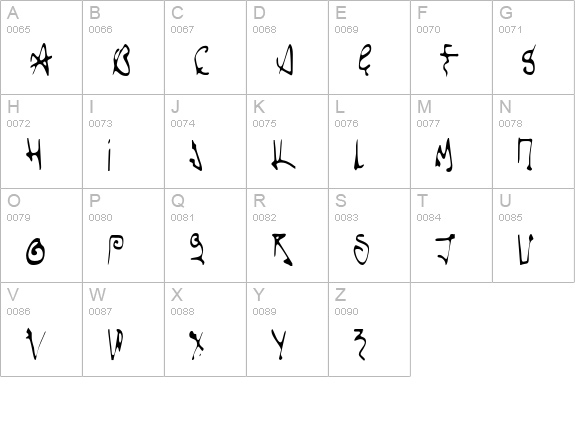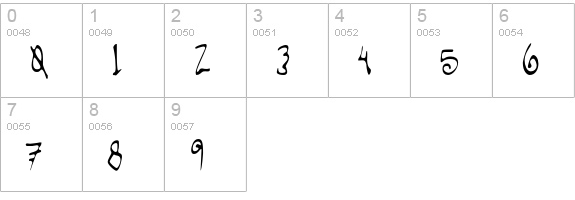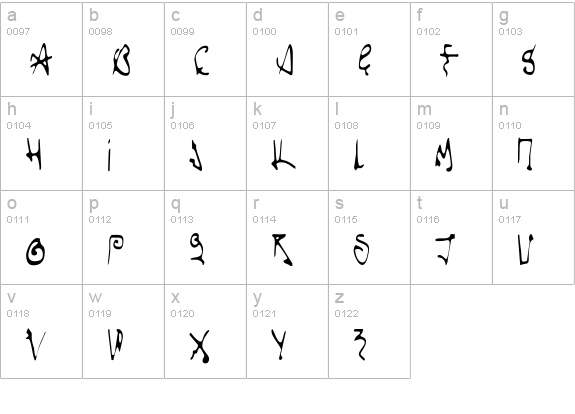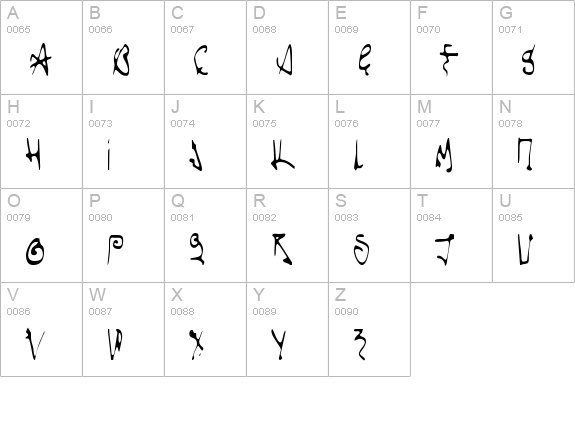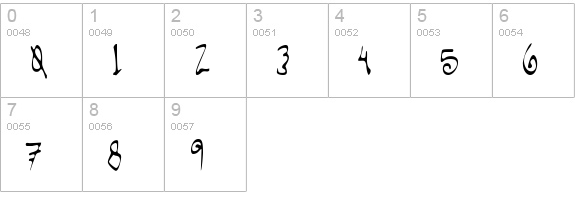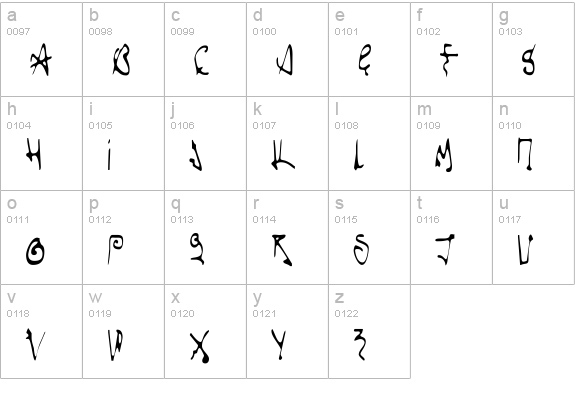
Scorpio Font Details
Introducing Scorpio, a mesmerizing font that exudes an air of mystery and intrigue. With its sleek and sophisticated design, Scorpio captures attention and leaves a lasting impression. This versatile typeface is perfect for a wide range of creative projects, from elegant logos to eye-catching signage. Scorpio's unique letterforms are expertly crafted, with exquisite attention to detail. Each curve and line is meticulously perfected to create a harmonious balance between elegance and readability. The characters flow effortlessly, creating a sense of movement and energy that adds a dynamic touch to any design. But what sets Scorpio apart is not just its stunning aesthetics, but also its accessibility. This font is freely available to download at FontsMarket.com, making it accessible to designers and creatives worldwide. Whether you're a professional graphic designer or a passionate hobbyist, Scorpio is here to elevate your projects to new heights. With its extensive character set, Scorpio allows you to express your creativity in any language or style. From bold headlines to delicate scripts, this font can adapt effortlessly to suit your design needs. It is the perfect choice for branding, advertising, editorial design, and much more. Scorpio's versatility doesn't end there. It also includes a range of stylistic alternates and ligatures, allowing you to add unique flourishes and embellishments to your typography. This font truly offers endless possibilities for customization, giving you the freedom to bring your creative vision to life. So why wait? Download Scorpio today from FontsMarket.com and unlock a world of limitless design possibilities. Whether you're looking to create striking visuals for your business or add a touch of elegance to your personal projects, Scorpio is the font that will take your designs to the next level.